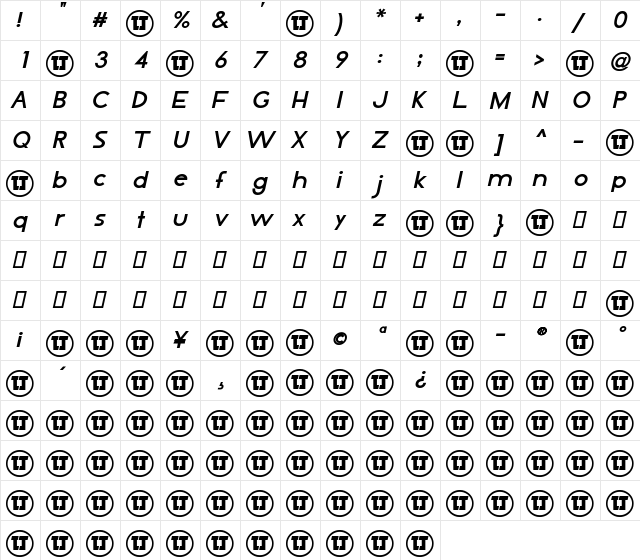
LJ Design Studios IS Bold Italic
| Foundry | LJ-Design Studios |
| Designer | LJ-Design Studios Group |
Design Context for LJ Design Studios IS Typeface
LJ Design Studios IS is a composed and adaptable typeface that performs quietly and consistently across a wide range of design contexts. The slanted form adds forward momentum and visual energy. Its bold stroke weight gives it real presence on the page.
Pro Tip: Use LJ Design Studios IS for emphasis, pull quotes, and subheadings where its slanted energy can add rhythm to the layout.